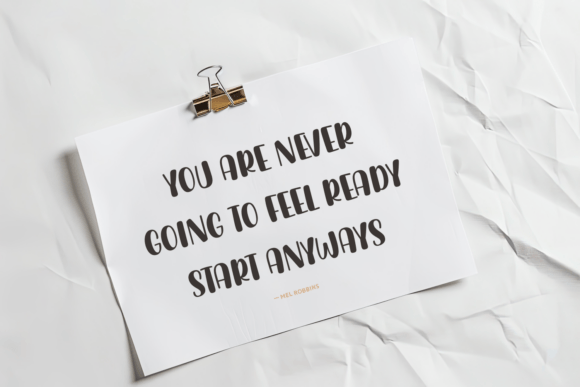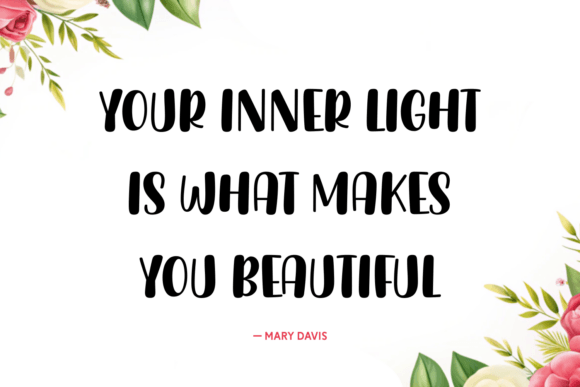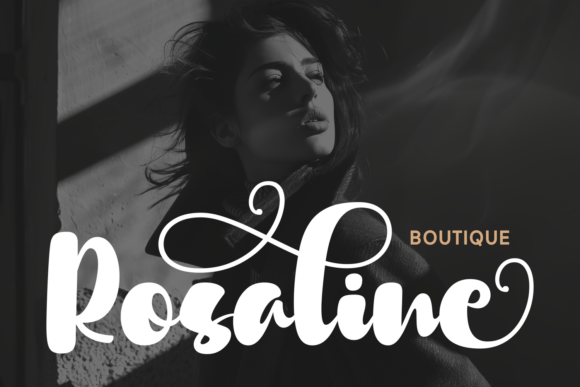
Caydina Font: Elevate Your Designs with Elegant Swashes
In the world of typography, fonts play a crucial role in conveying emotions and setting the tone for a design. For designers and crafters seeking to add a touch of elegance and romance to their creations, the Caydina font is an excellent choice. This beautiful, bold script font features flowing letters and elegant swashes, making it perfect for invitations, greeting cards, and any design that needs a warm, heartfelt feel.
The Beauty of Caydina Font
Caydina font is a stunning example of modern script typography. Its bold, cursive letters are designed to make a statement, while its elegant swashes add a touch of sophistication. The font’s flowing lines and curves create a sense of movement, drawing the viewer’s eye through the text. Whether you’re designing a wedding invitation, a greeting card, or a social media post, Caydina font is sure to impress.
Perfect for Invitations and Greeting Cards
Invitations and greeting cards are special occasions that call for a unique and personalized touch. Caydina font is ideal for these types of designs, as it adds a warm, heartfelt feel that’s sure to resonate with the recipient. The font’s elegant swashes and flowing letters create a sense of luxury and sophistication, making it perfect for:
- Birthday and anniversary cards
- Holiday greetings and cards
- Thank-you notes and appreciation cards
Adding a Touch of Romance and Charm
Caydina font is not just elegant; it’s also romantic and charming. Its flowing letters and swashes evoke a sense of nostalgia and whimsy, making it perfect for designs that require a touch of personality. Whether you’re designing a logo, a social media post, or a blog header, Caydina font is sure to add a dash of romance and charm.
Tips for Using Caydina Font
To get the most out of Caydina font, here are some tips to keep in mind:
- Use it sparingly: Caydina font is bold and elegant, so use it sparingly to avoid overwhelming the design.
- Pair it with a simple font: Pair Caydina font with a simple, clean font to create contrast and visual interest.
- Experiment with swashes: Caydina font features elegant swashes that can add a touch of sophistication to your design. Experiment with different swash styles to find the one that works best for your project.
- Consider the color: Caydina font looks stunning in a variety of colors, from rich jewel tones to soft pastels. Choose a color that complements your design and adds to the overall aesthetic.
Why Designers and Crafters Love Caydina Font
Caydina font has become a favorite among designers and crafters for several reasons:
- Unique and elegant: Caydina font is a unique and elegant addition to any design.
- Versatile: Caydina font can be used for a variety of projects, from invitations and greeting cards to logos and social media posts.
- Easy to use: Caydina font is easy to use and pairs well with a variety of other fonts.
- High-quality: Caydina font is a high-quality font that’s designed to deliver exceptional results.
In conclusion, Caydina font is a beautiful, bold script font that’s perfect for designers and crafters seeking to add a touch of elegance and romance to their creations. Its flowing letters and elegant swashes make it ideal for invitations, greeting cards, and any design that needs a warm, heartfelt feel. With its versatility, ease of use, and high-quality design, Caydina font is sure to become a favorite in your design arsenal.